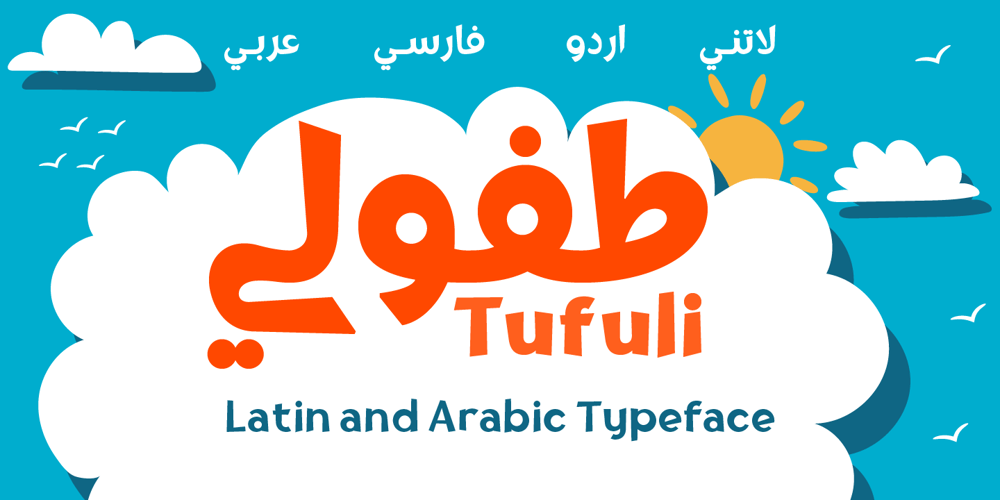
Tufuli Arabic
Tufuli Arabic font
Tufuli Arabic Font Family was designed by Nur Syamsi, Bustanul Arifin and published by NamelaType. Tufuli Arabic contains 5 styles and family package options. Tufuli is a harmonized Arabic – Latin font with childish characters. The sloping geometric terminal shapes gives Tufuli a playful feeling.